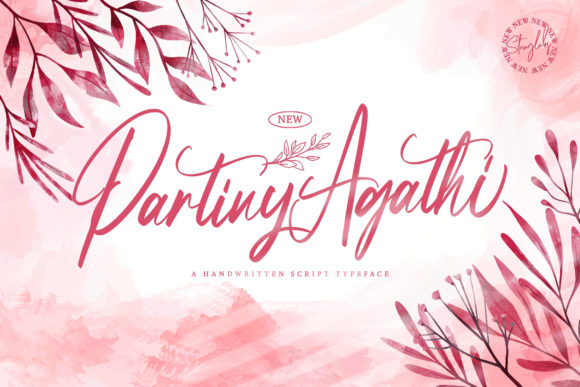
Step into the world of elegance and sophistication with Partiny Agathi, a fashion-forward script font crafted by the talented team at StringLabs. This remarkable creation exudes class, exuding a modern charm that will elevate your designs to new heights.
Meet the font of your dreams, blending the allure of a handwritten touch with the precision of digital artistry. Its stylish characters dance across the page, captivating your audience with their graceful curves and alluring flourishes.
Unleash your creativity and explore endless possibilities with Partiny Agathi. Manifest your vision for logos that command attention, branding that leaves a lasting impression, invitations that invite elegance, or stationery that reflects your refined taste. Let your social media posts shine with captivating visuals, and transform your wedding designs into a timeless keepsake.
Imagine your words taking shape in the form of Partiny Agathi, where every letter tells a story of beauty and sophistication. Witness the magic as your designs come to life, attracting eyes and leaving hearts enchanted.
See your brand elevate to new heights, captivating your audience with a visual symphony. Let Partiny Agathi be the brush that paints your creative dreams into reality.
Embrace the power of a font that speaks volumes without uttering a single word. With Partiny Agathi, your designs will radiate charm, captivate hearts, and leave a legacy of elegance.